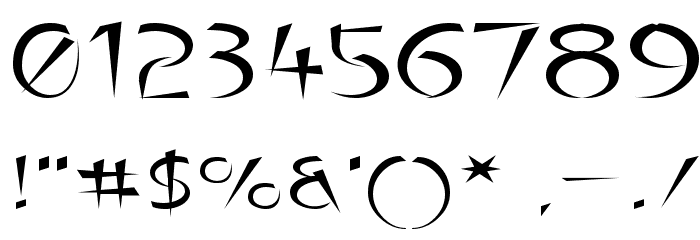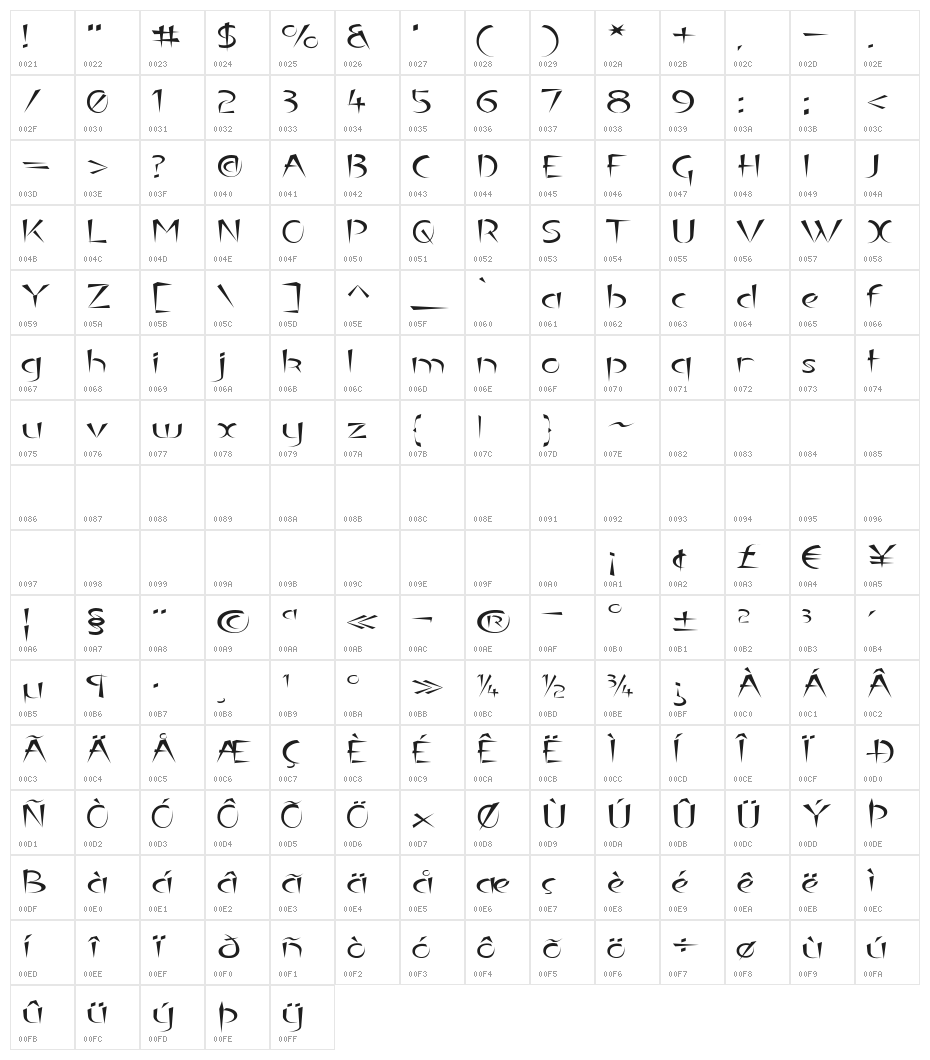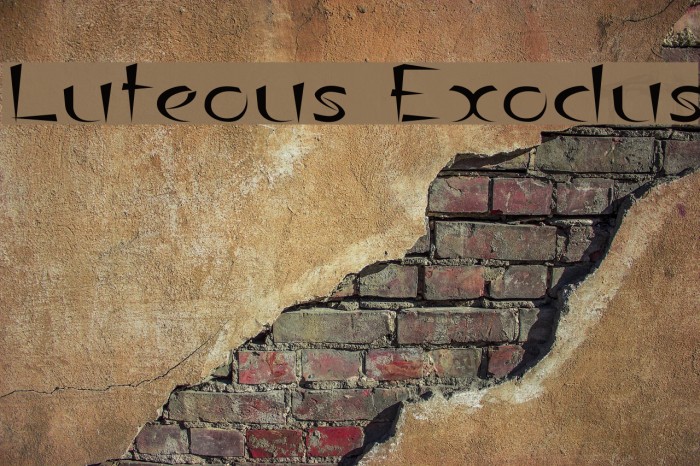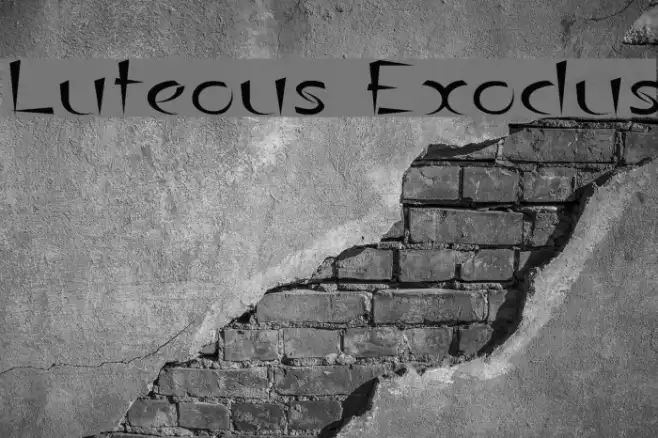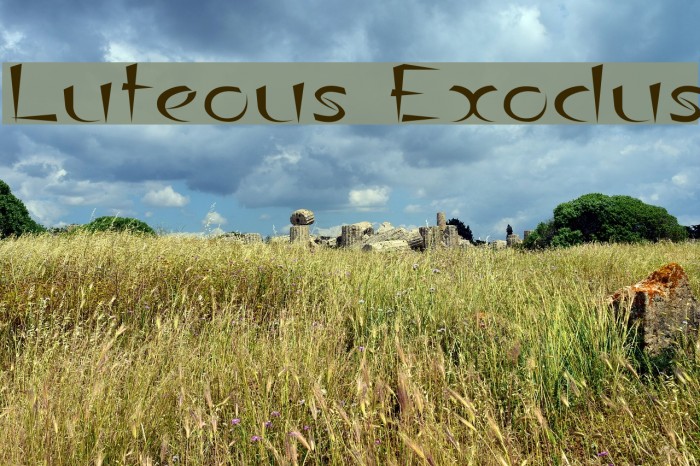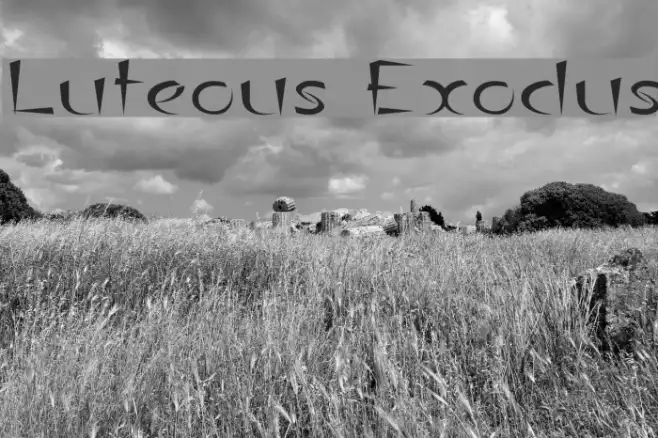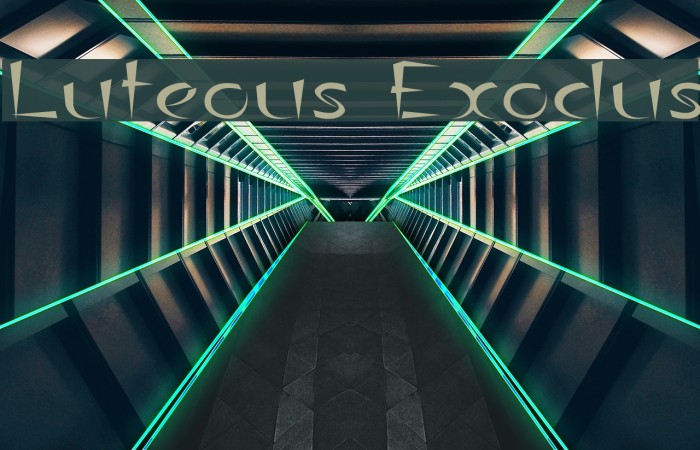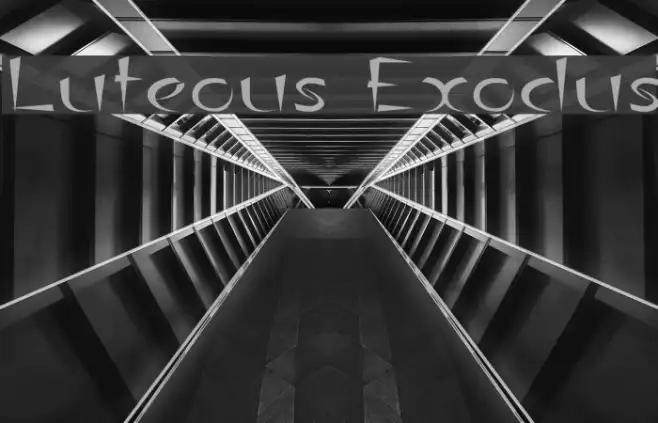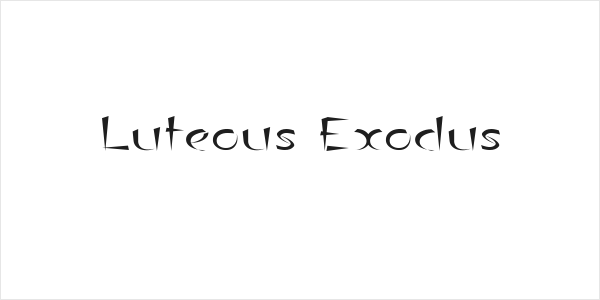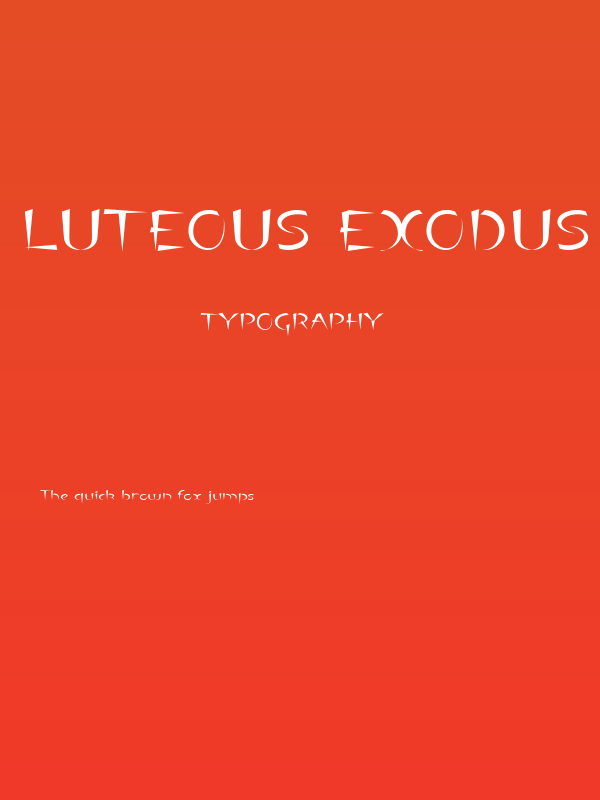
Luteous Exodus Font
Luteous Exodus Description
This font features a unique and edgy design with sharp, angular strokes that give it a dynamic and aggressive appearance. The characters are crafted with pointed tips and varying line thickness, creating a sense of movement and energy. The uppercase letters are bold and commanding, while the lowercase letters maintain a consistent style with slightly softer curves. Numbers and special characters are designed to match the overall aesthetic, ensuring a cohesive look across all text. This font stands out with its modern and unconventional style, making it suitable for projects that require a strong visual impact.
| Proposed Projects | Ideal for music album covers, video game titles, movie posters, and branding for edgy or modern products. |